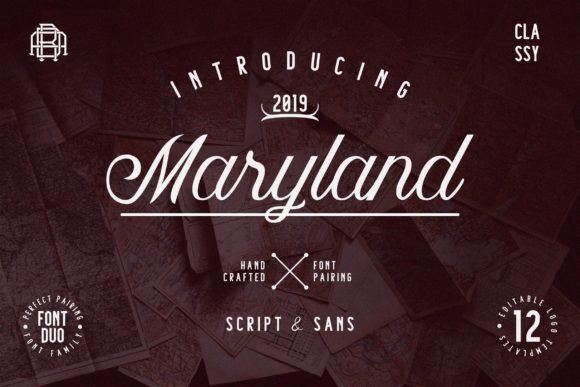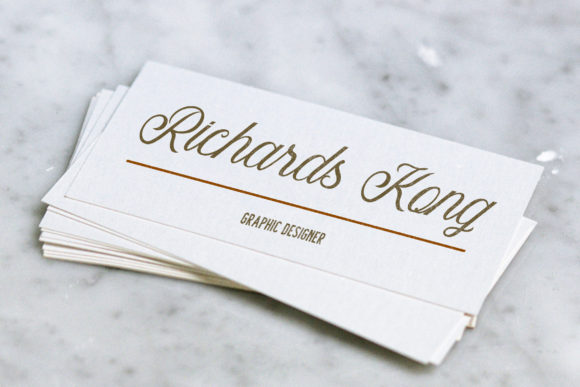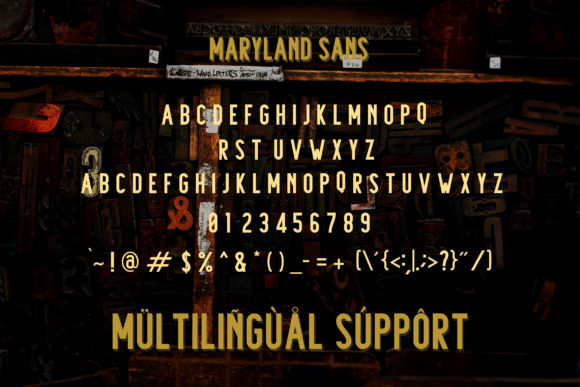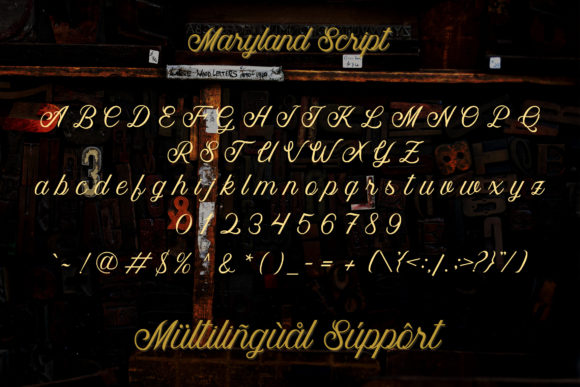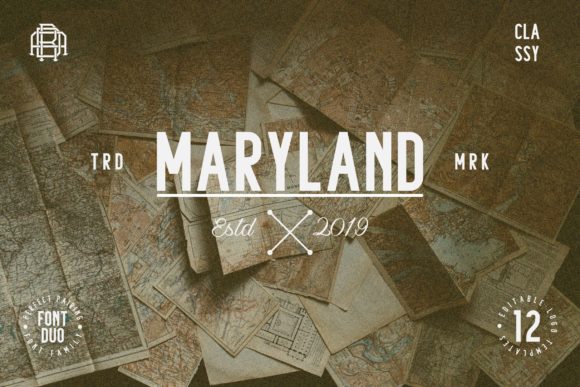
Maryland Family Font
About Maryland Family Font
The Maryland is an amazing font family. It includes a script and sans version which can be combined perfectly. It’s perfect for logos, labels, packaging, headlines, and every other design which needs a classy, yet modern look.